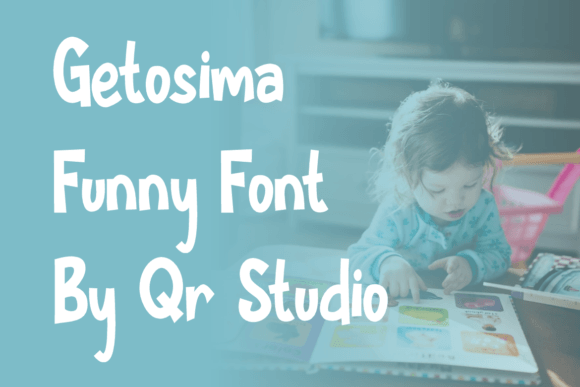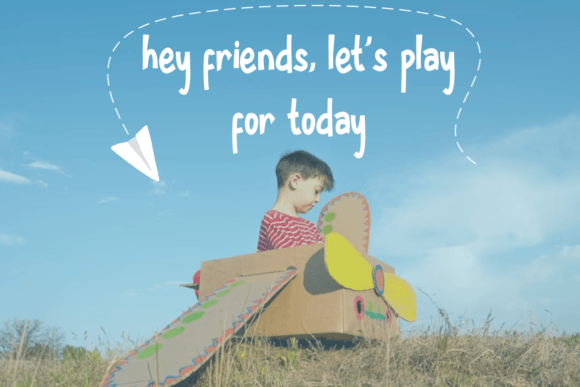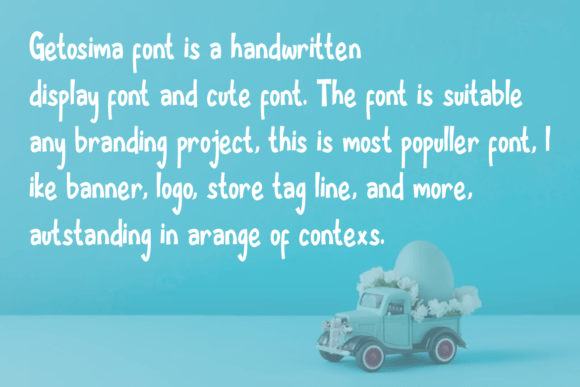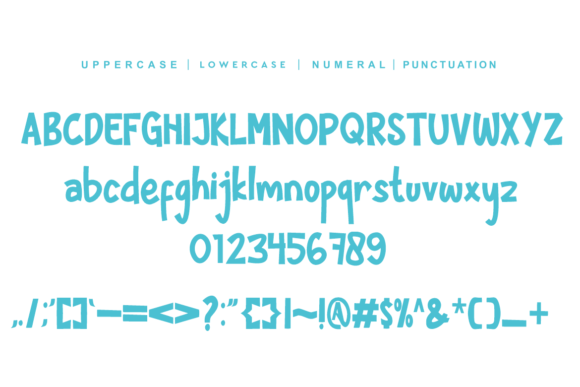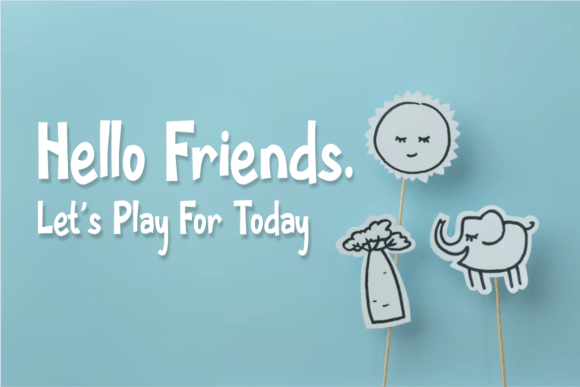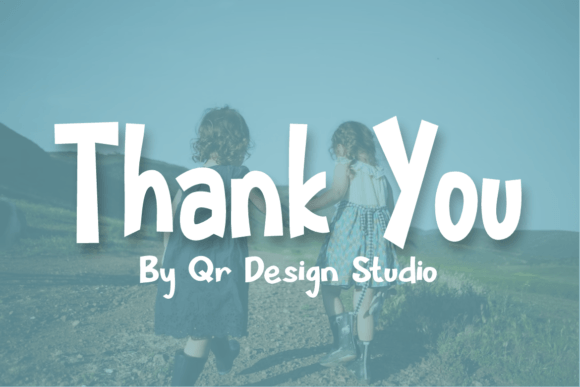
Introducing Getosima Font: The Sweet and Friendly Handwritten Font for Your Design Needs
Are you a designer or crafter looking for a font that can add a personal touch to your projects? Look no further than Getosima Font, a sweet and friendly handwritten font that’s perfect for a wide range of designs. With its natural and unique style, Getosima Font is incredibly versatile and can be used in various contexts, from digital designs to print materials.
The Characteristics of Getosima Font
Getosima Font is a handwritten font that exudes warmth and friendliness. Its natural and unique style makes it stand out from other fonts, and its sweetness is sure to capture the hearts of your audience. The font’s flowing lines and curves create a sense of movement and fluidity, making it perfect for designs that require a touch of elegance and sophistication.
One of the best things about Getosima Font is its versatility. It can be used in a variety of designs, from:
- Digital designs, such as social media graphics, blog posts, and website headers
- Print materials, such as brochures, flyers, and business cards
- Crafting projects, such as handmade cards, scrapbooking, and journaling
- Branding and packaging designs
The Benefits of Using Getosima Font
So, why choose Getosima Font for your design needs? Here are just a few benefits of using this amazing font:
- Unique and eye-catching: Getosima Font is a one-of-a-kind font that will make your designs stand out from the crowd.
- Easy to read: The font’s clear and flowing lines make it easy to read, even in small sizes.
- Versatile: Getosima Font can be used in a wide range of designs, from digital to print materials.
- Time-saving: With Getosima Font, you can create professional-looking designs in no time, without having to spend hours searching for the perfect font.
How to Use Getosima Font in Your Designs
Using Getosima Font in your designs is easy! Here are a few tips to get you started:
- Pair it with other fonts: Getosima Font pairs well with other fonts, such as sans-serif fonts, to create a unique and interesting contrast.
- Experiment with colors: The font’s natural style looks great in a variety of colors, from bright and bold to soft and pastel.
- Use it in headlines and titles: Getosima Font is perfect for headlines and titles, where its unique style can really shine.